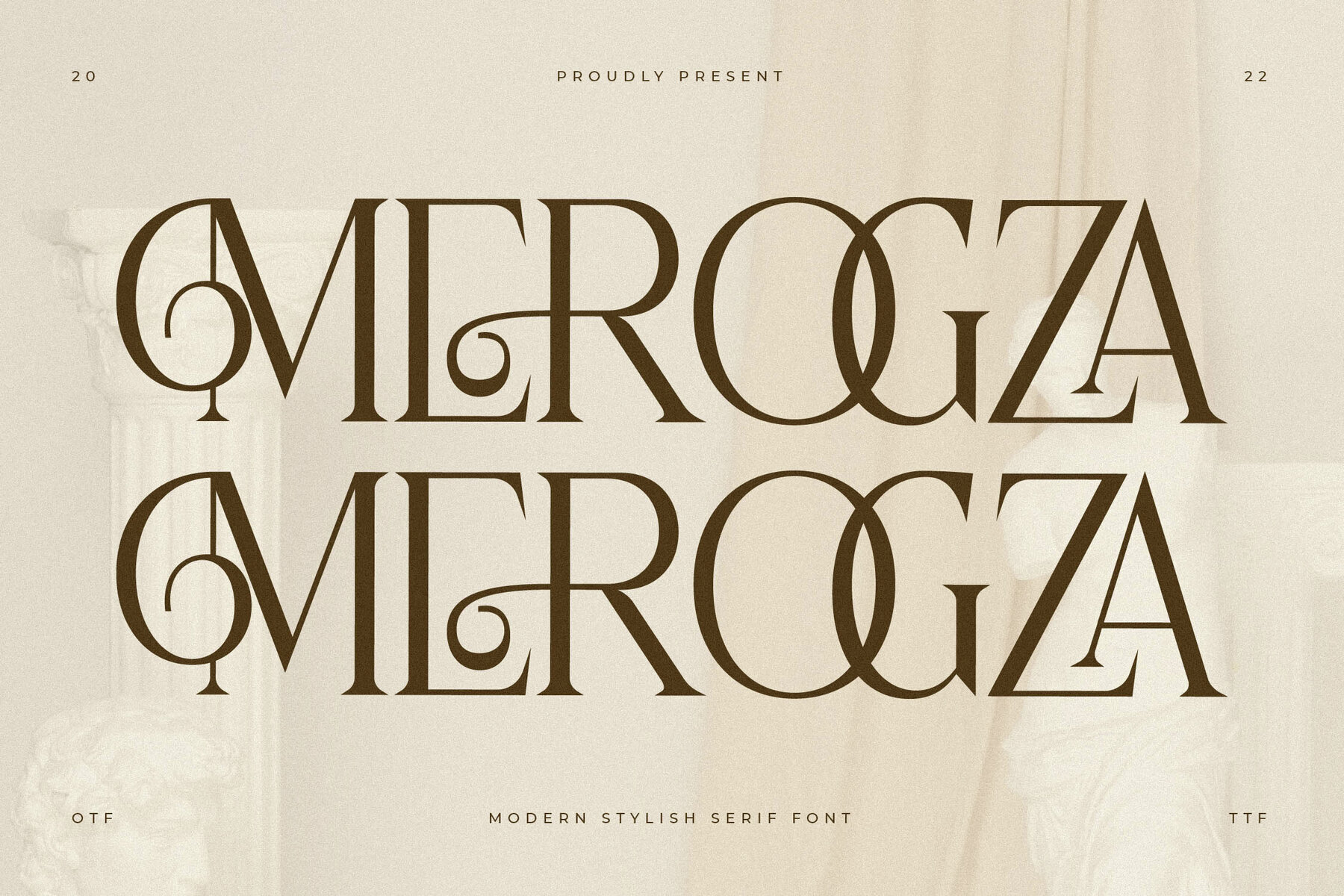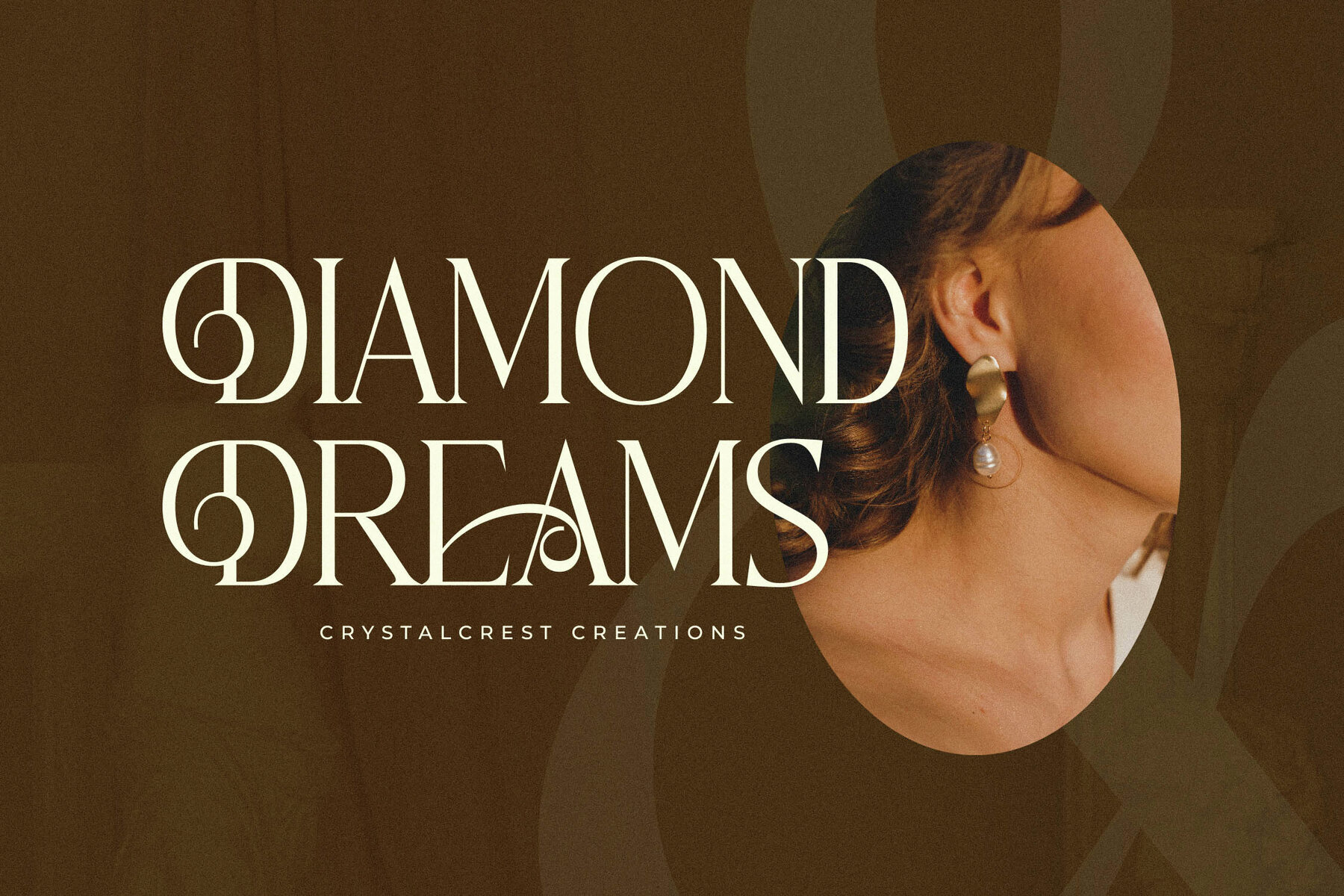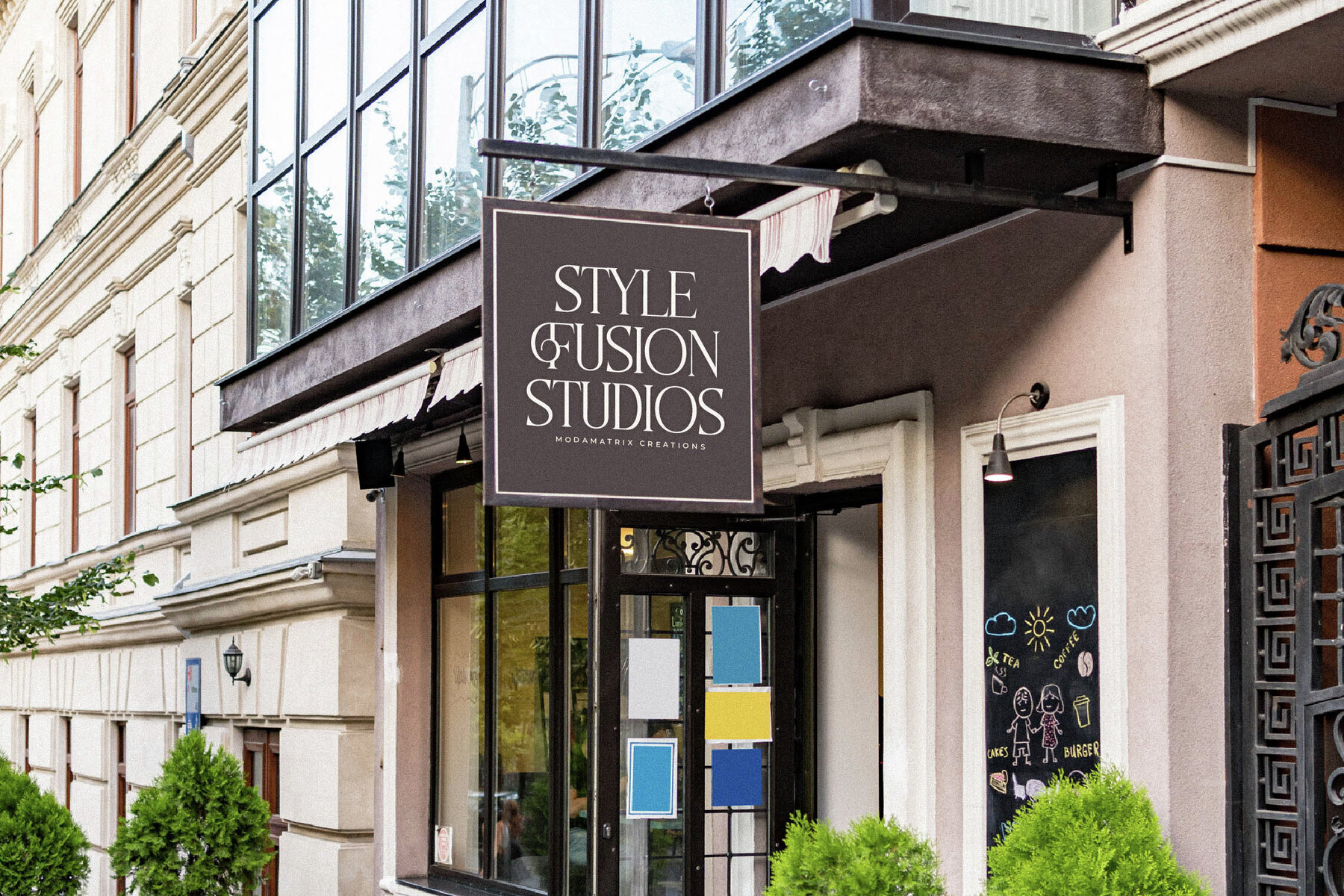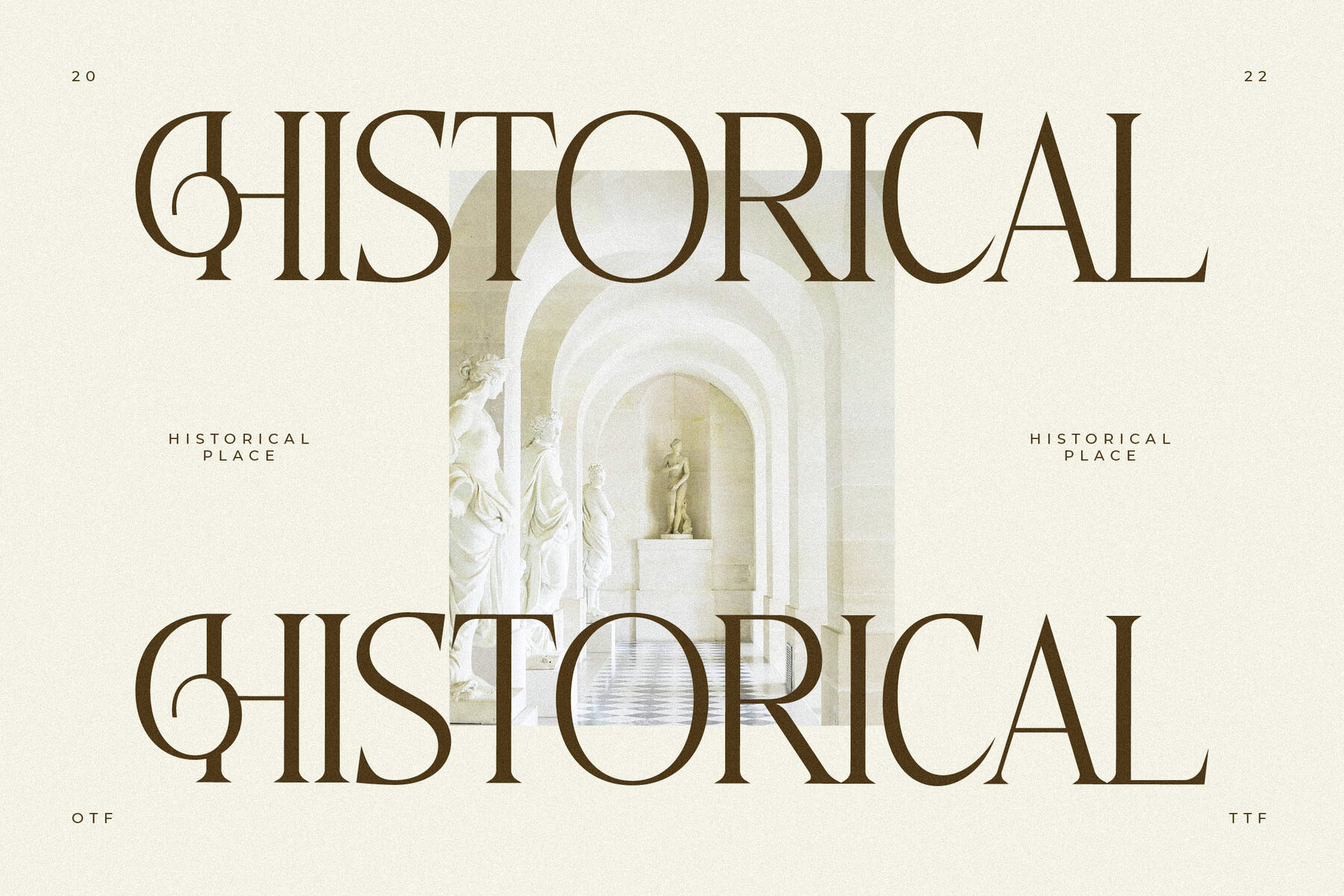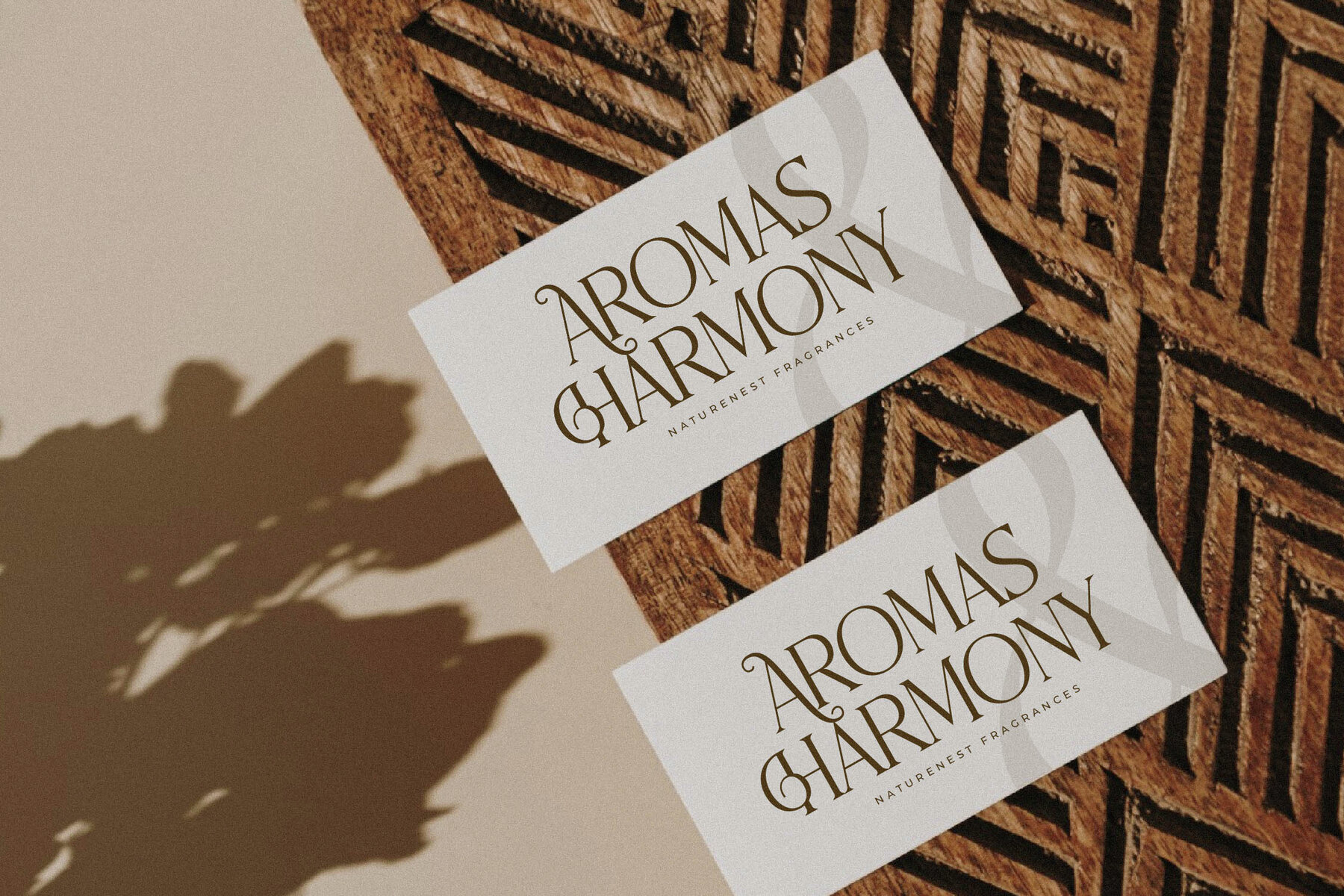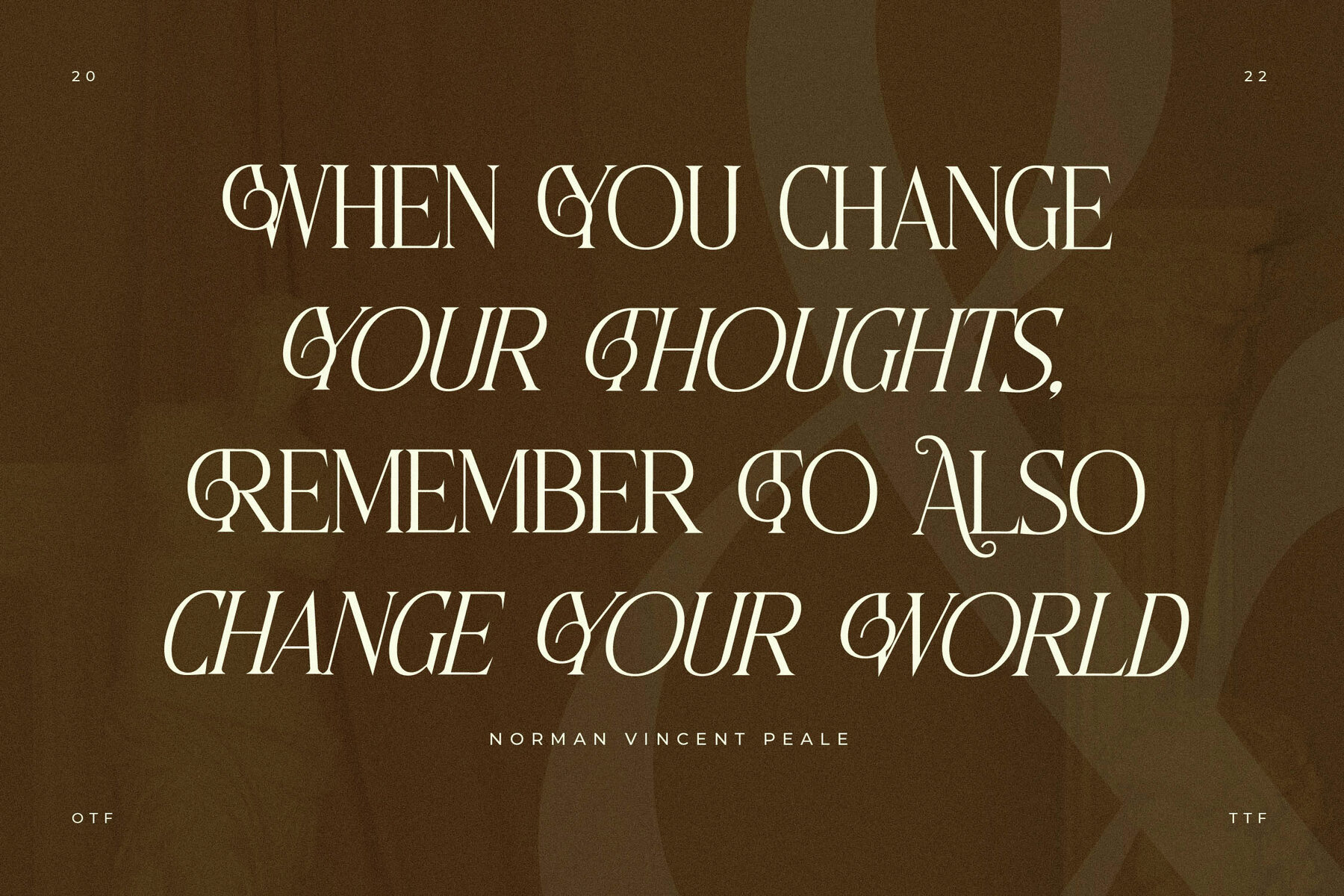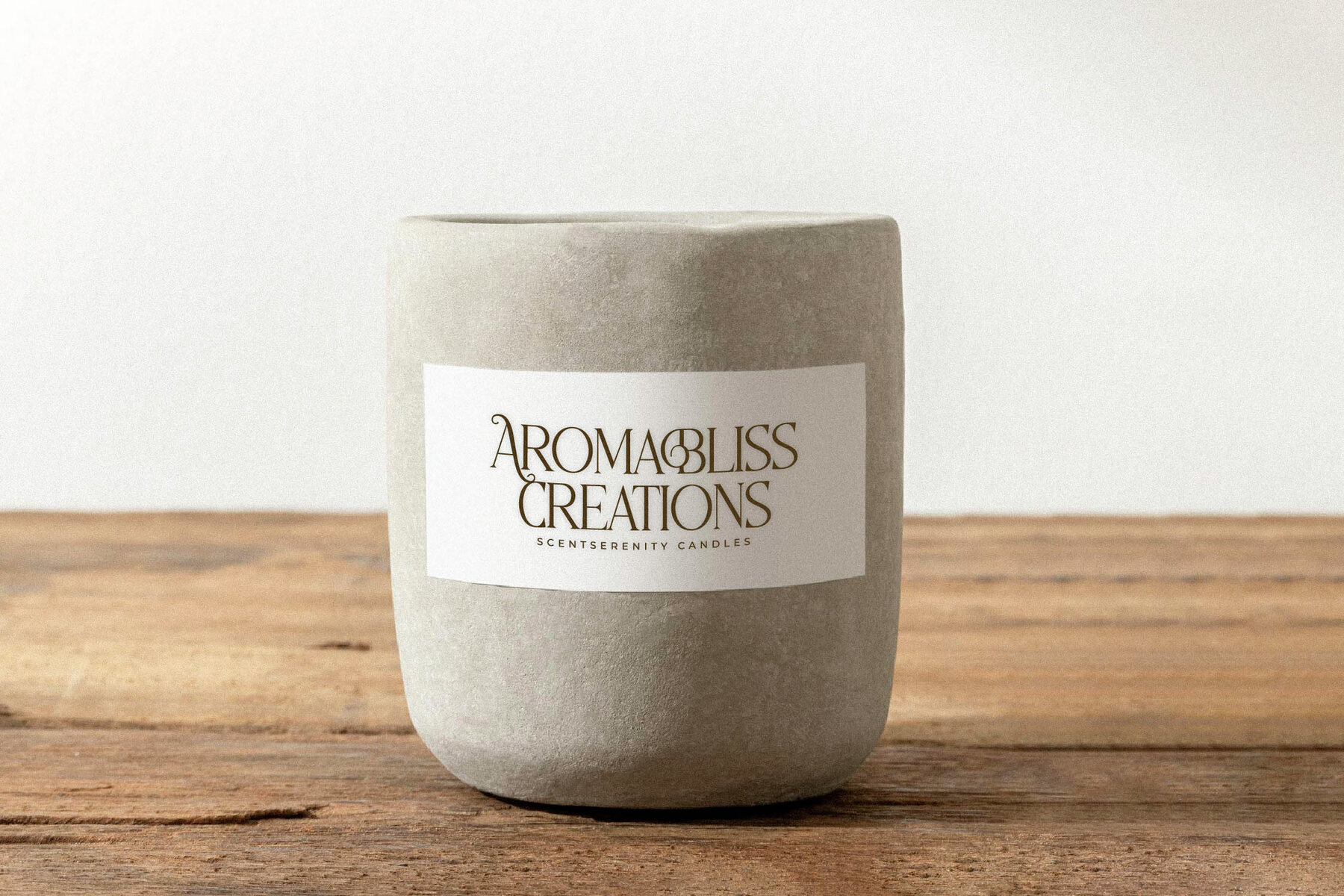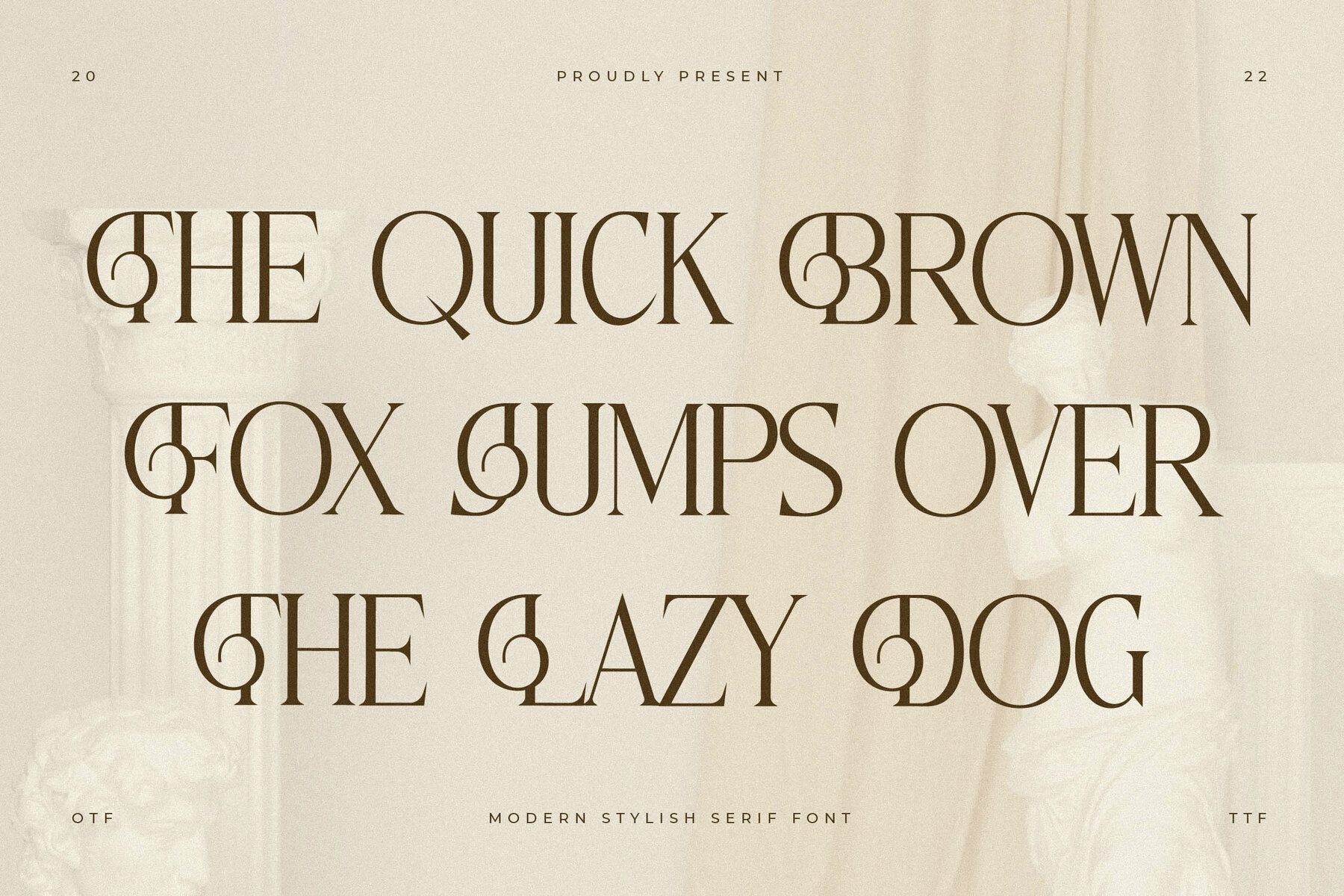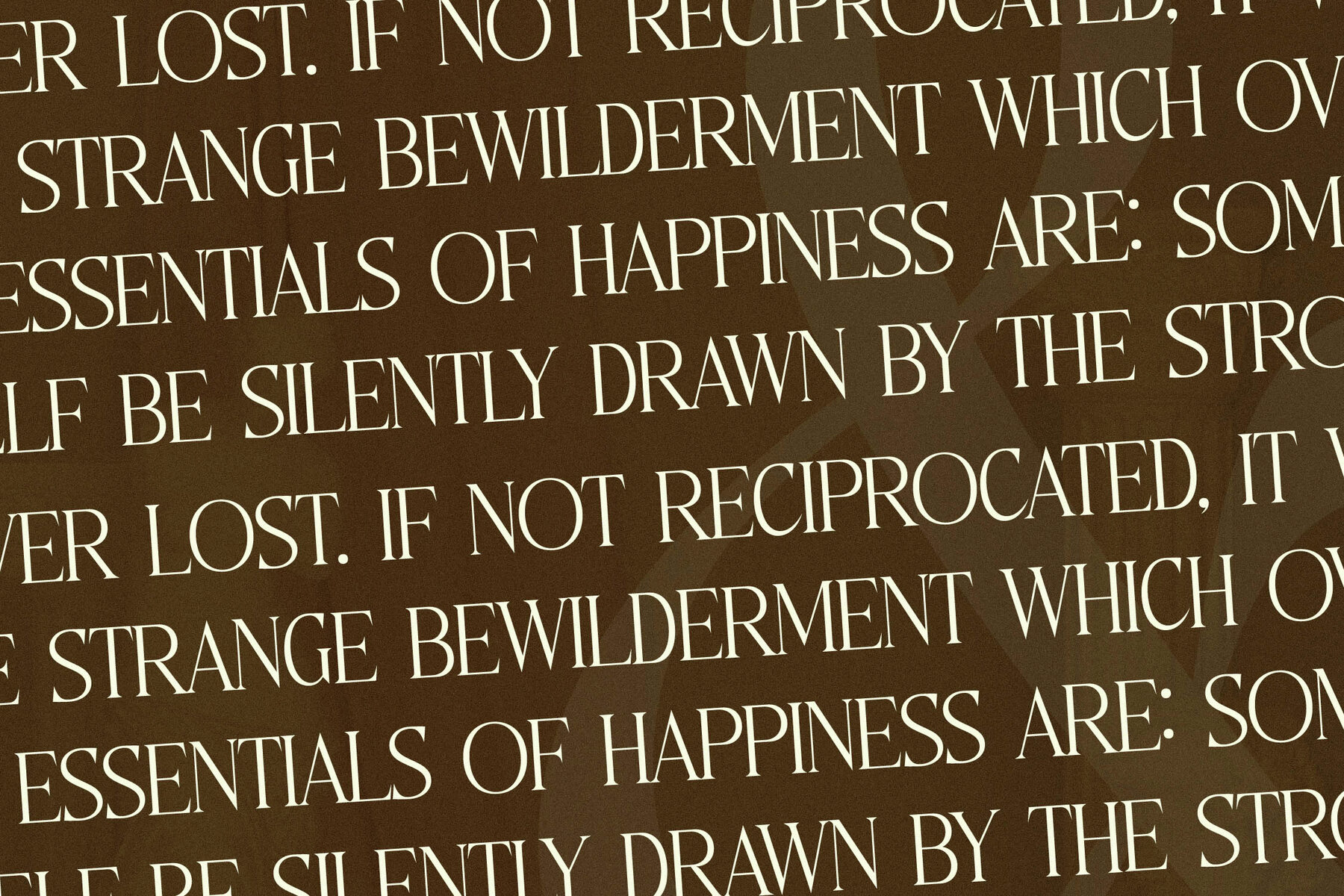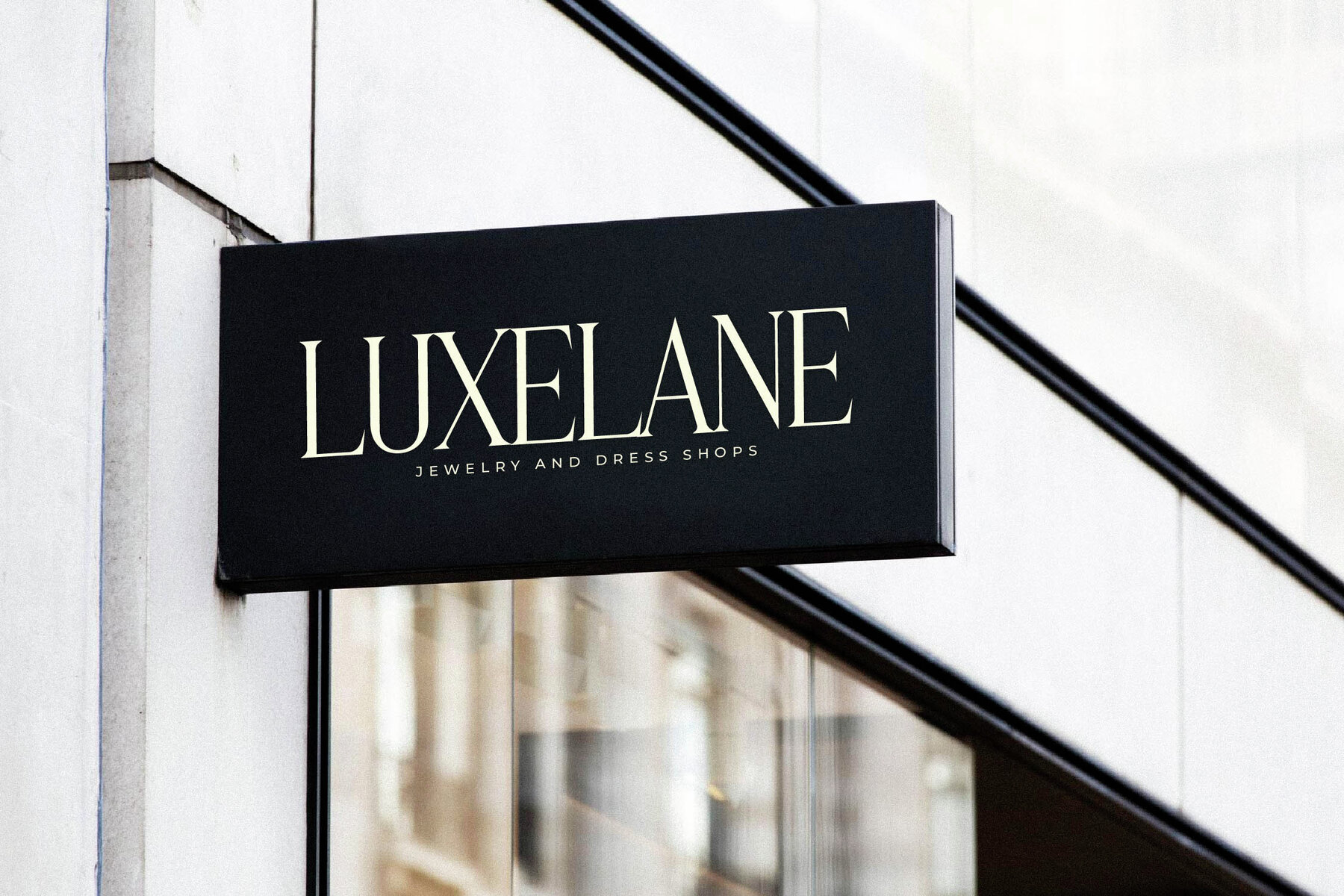
Merogza Font
Experience the unique charm of the Merogza Typeface by Storytype. This modern classic serif typeface is carefully crafted to offer a distinctive style, merging contemporary allure with timeless sophistication. Ideal for adding a touch of luxury to logos, book and movie titles, fashion branding, and magazine layouts, Merogza brings an upscale dimension to every project. Elevate your designs with its refined aesthetic that speaks volumes.Discover the Elegance of Merogza Typeface
Outstanding Features